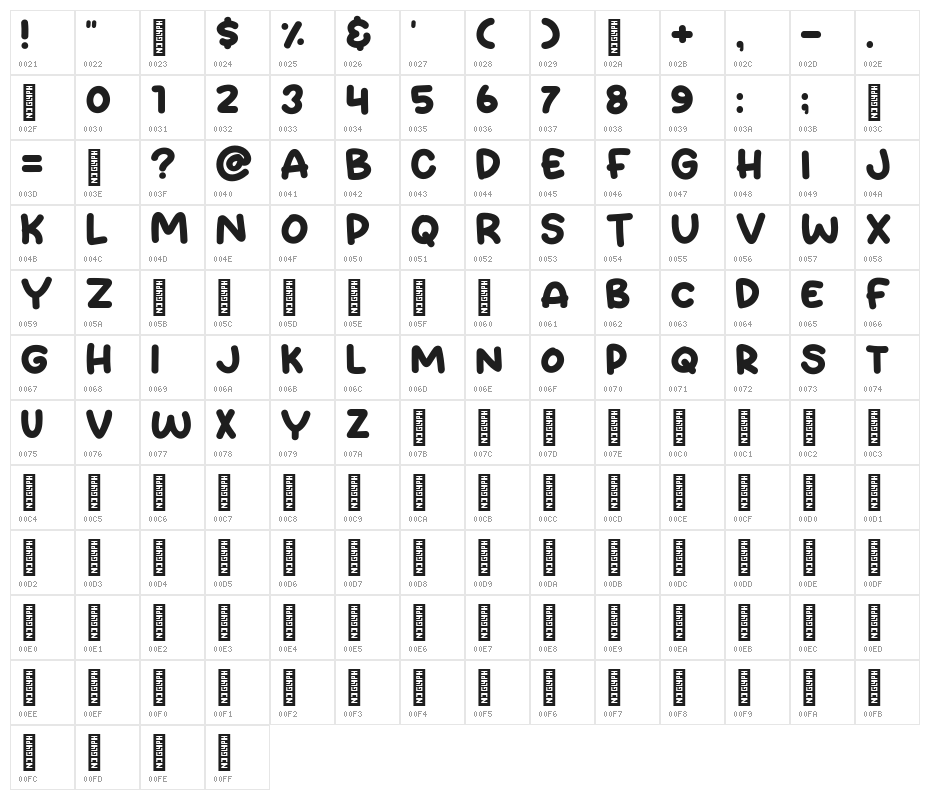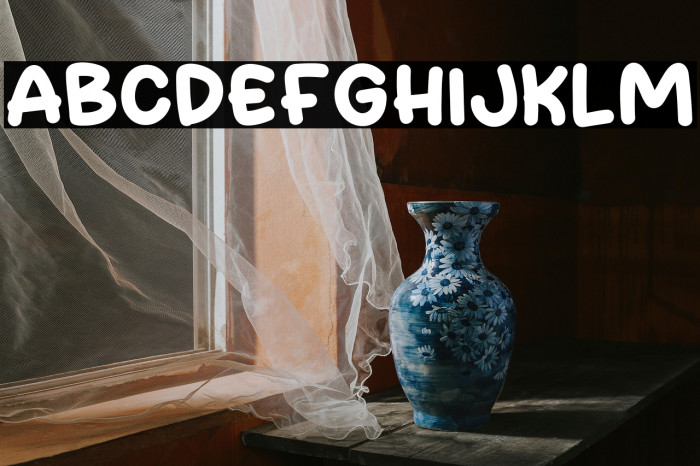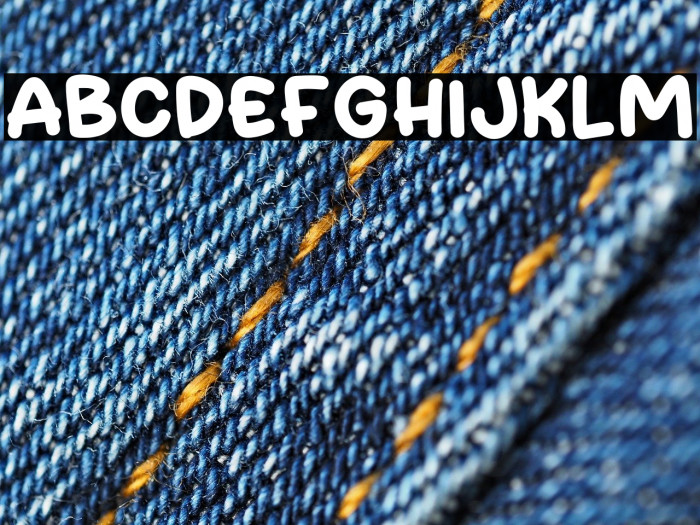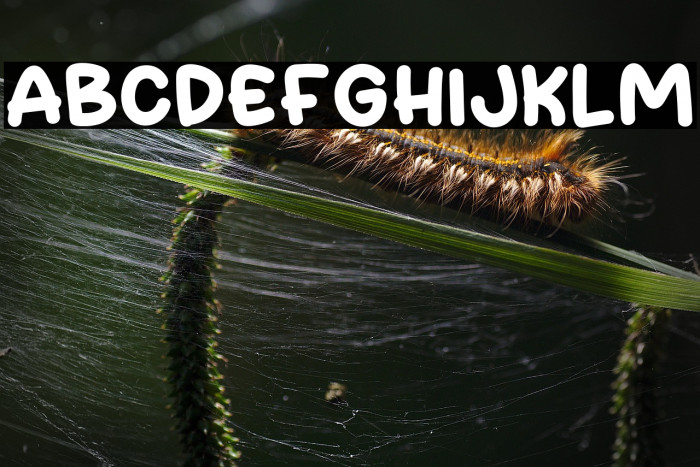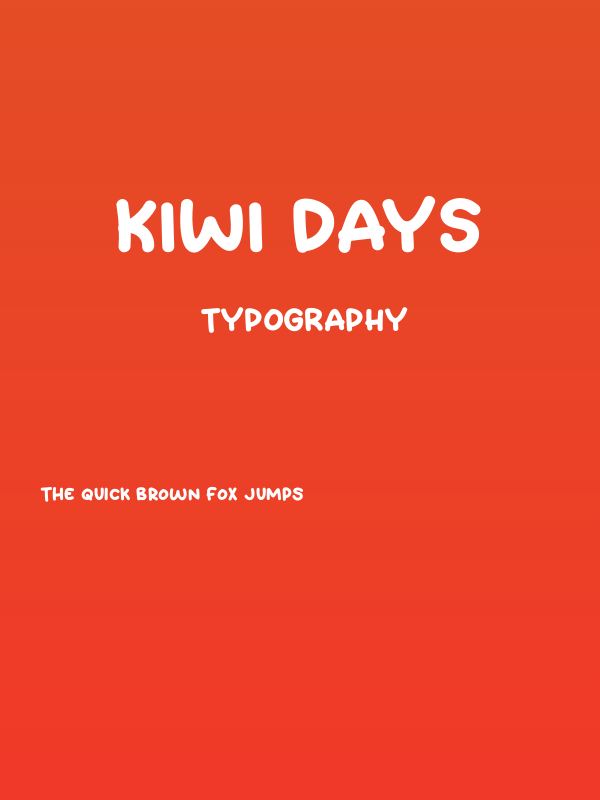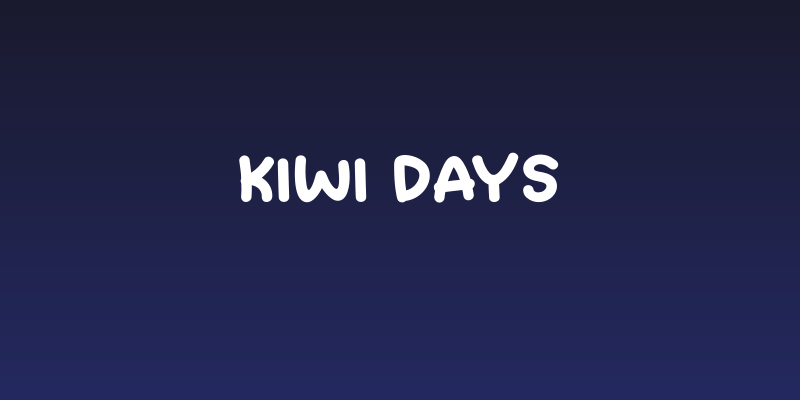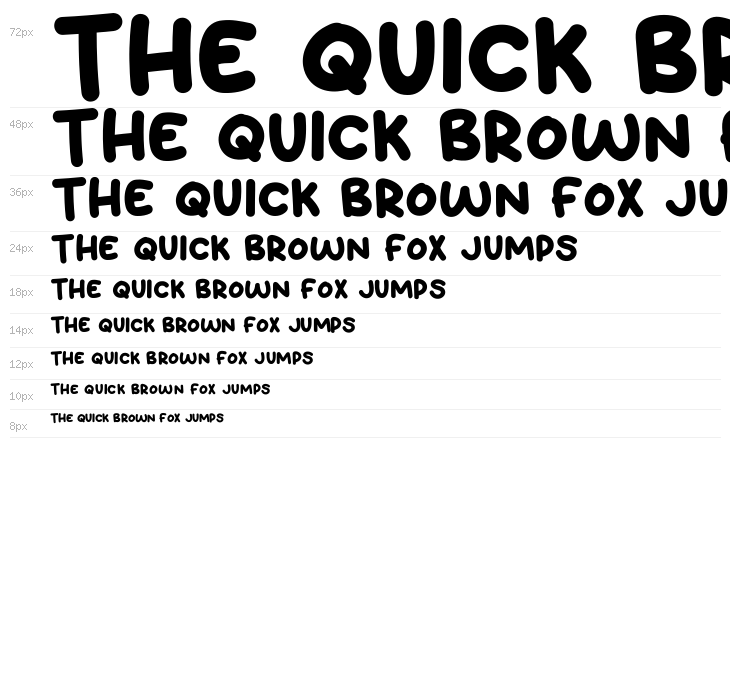
Kiwi Days Font
Kiwi Days Description
This playful and bold font features rounded, thick strokes that give it a friendly and approachable appearance. The characters are uniformly bold, with a consistent stroke width that maintains a cohesive look throughout the alphabet. The letters are slightly condensed, creating a compact feel without sacrificing readability. This font's whimsical style is accentuated by its smooth curves and lack of sharp edges, making it ideal for designs that aim to convey warmth and fun. The numbers and special characters follow the same design principles, ensuring a harmonious look across all elements.
Overall StylePlayful
Proposed ProjectsIdeal for children's books, playful branding, posters, and social media graphics.